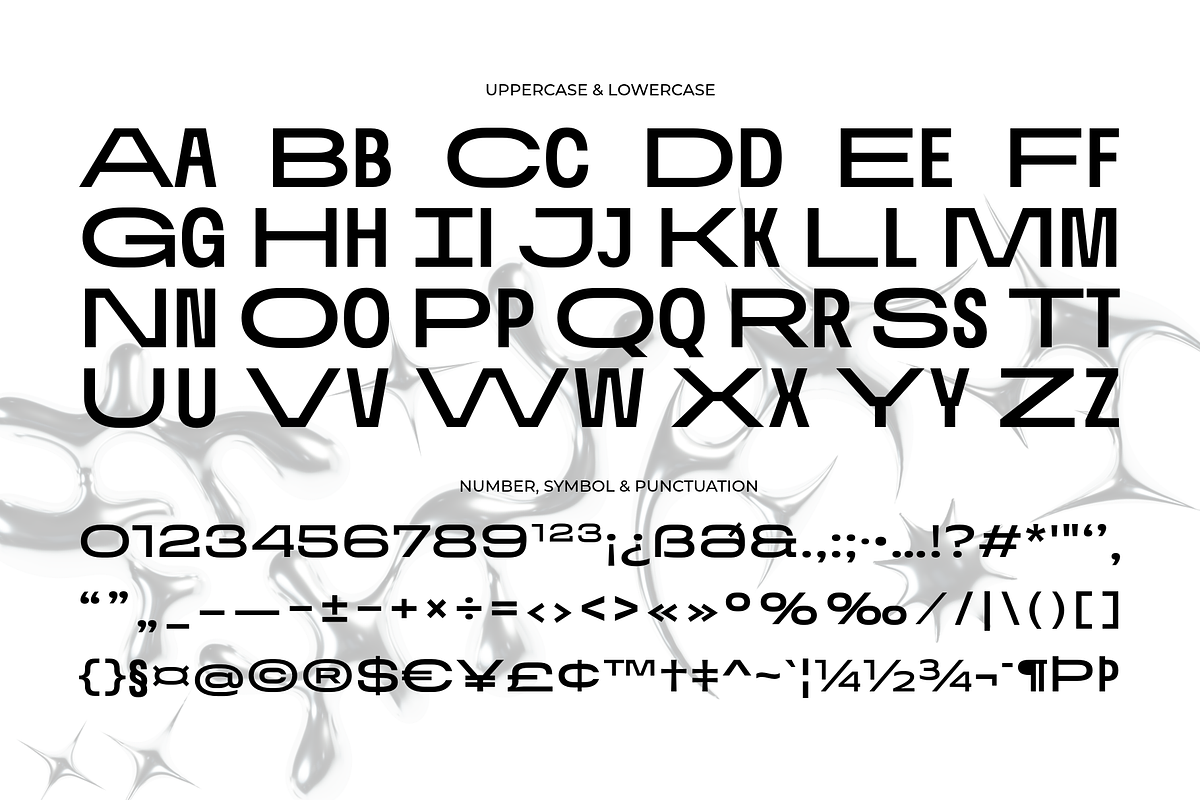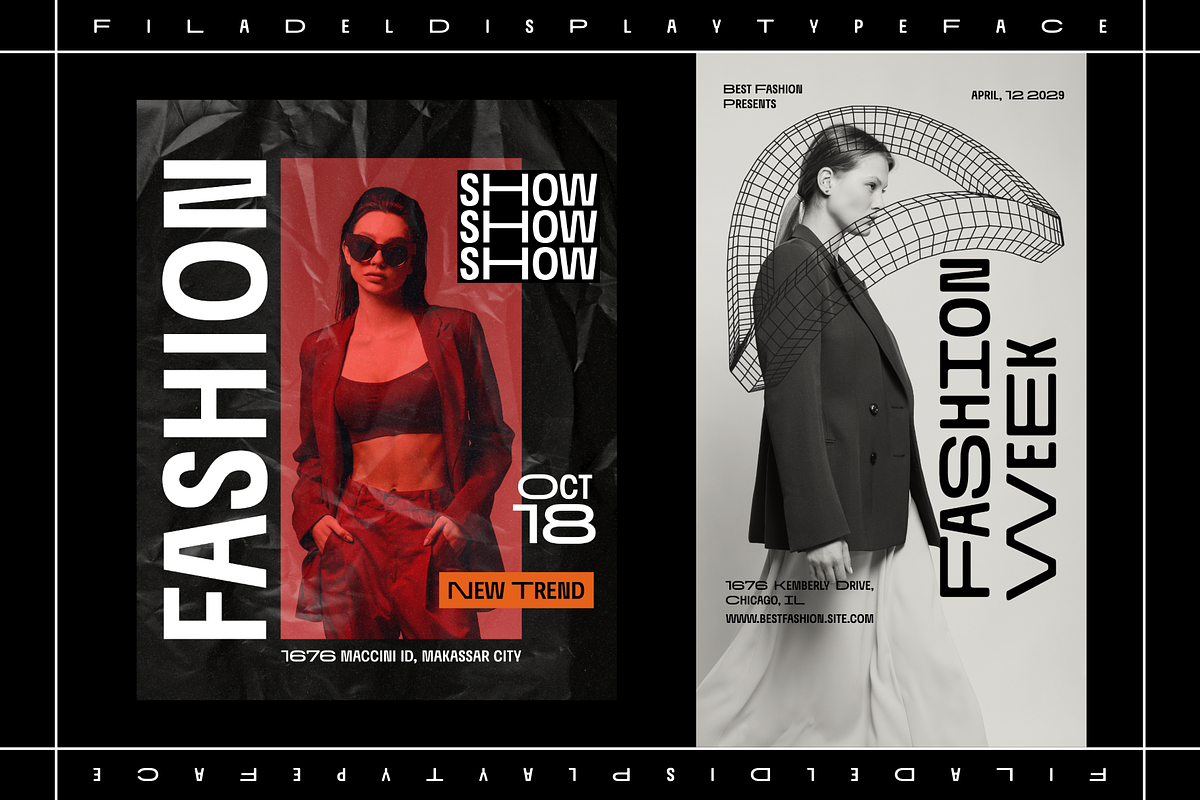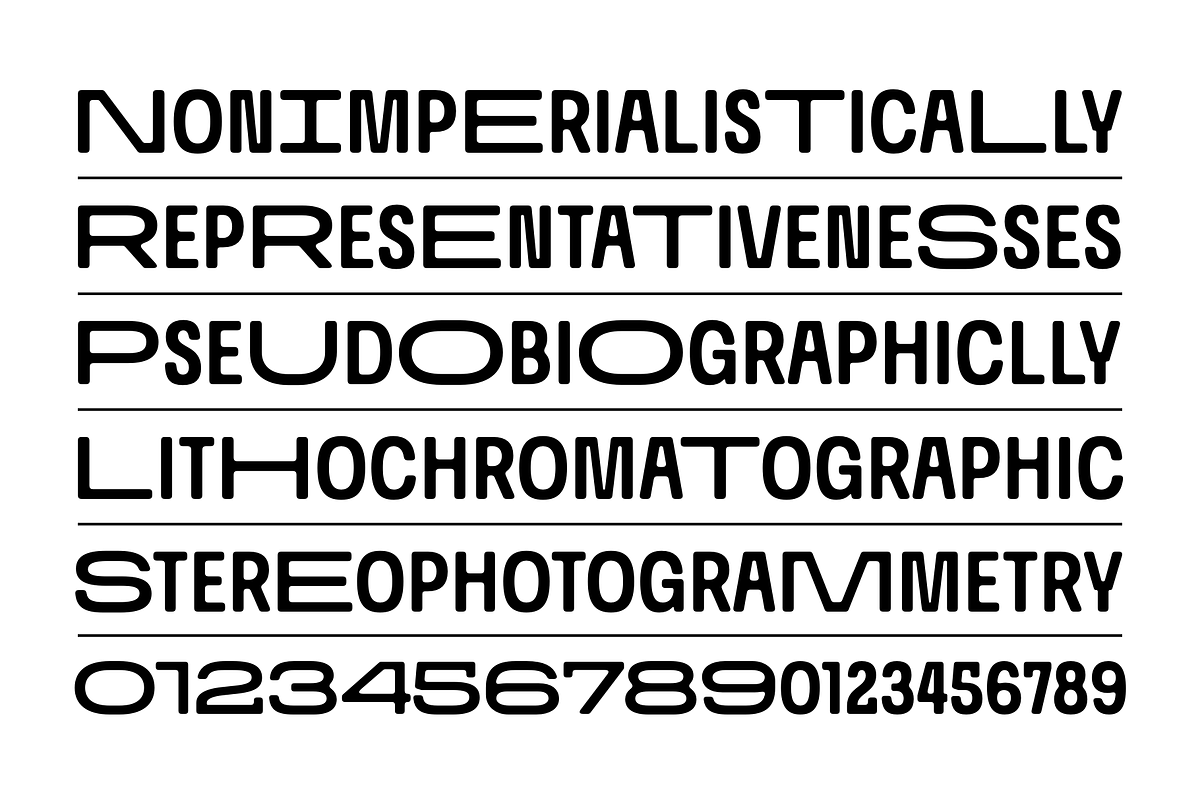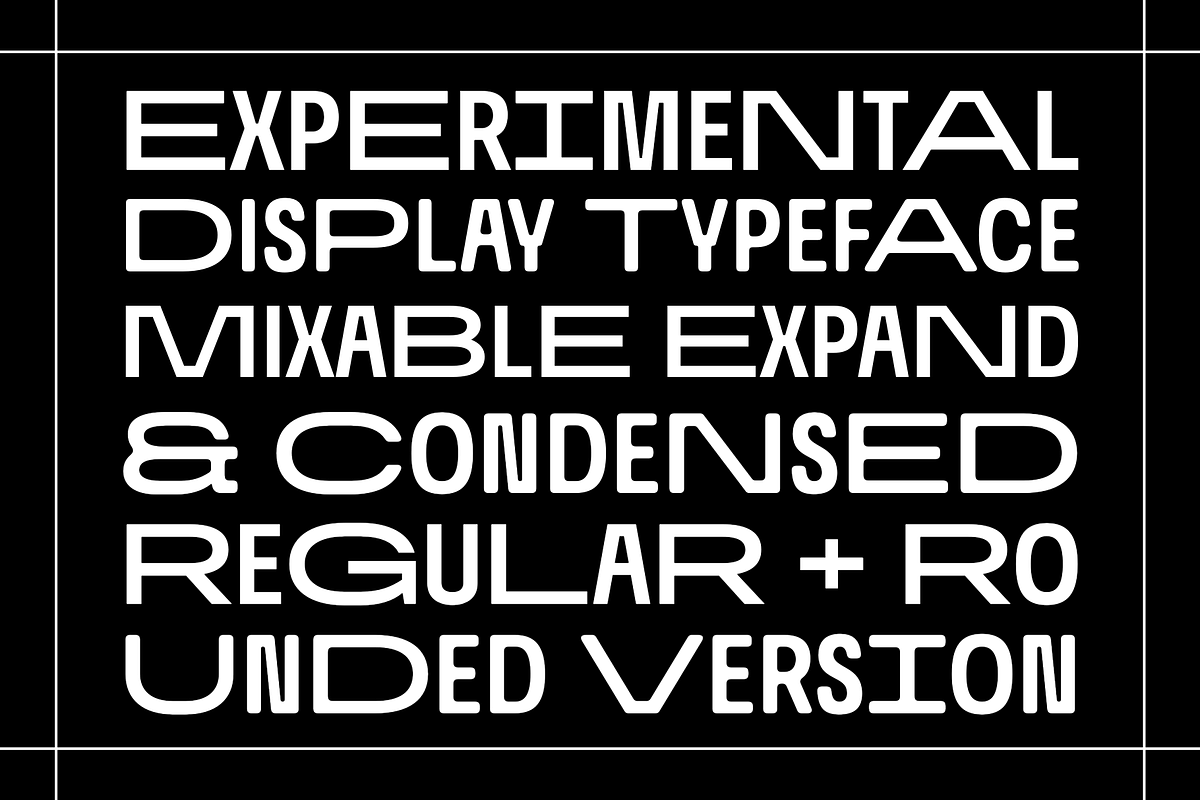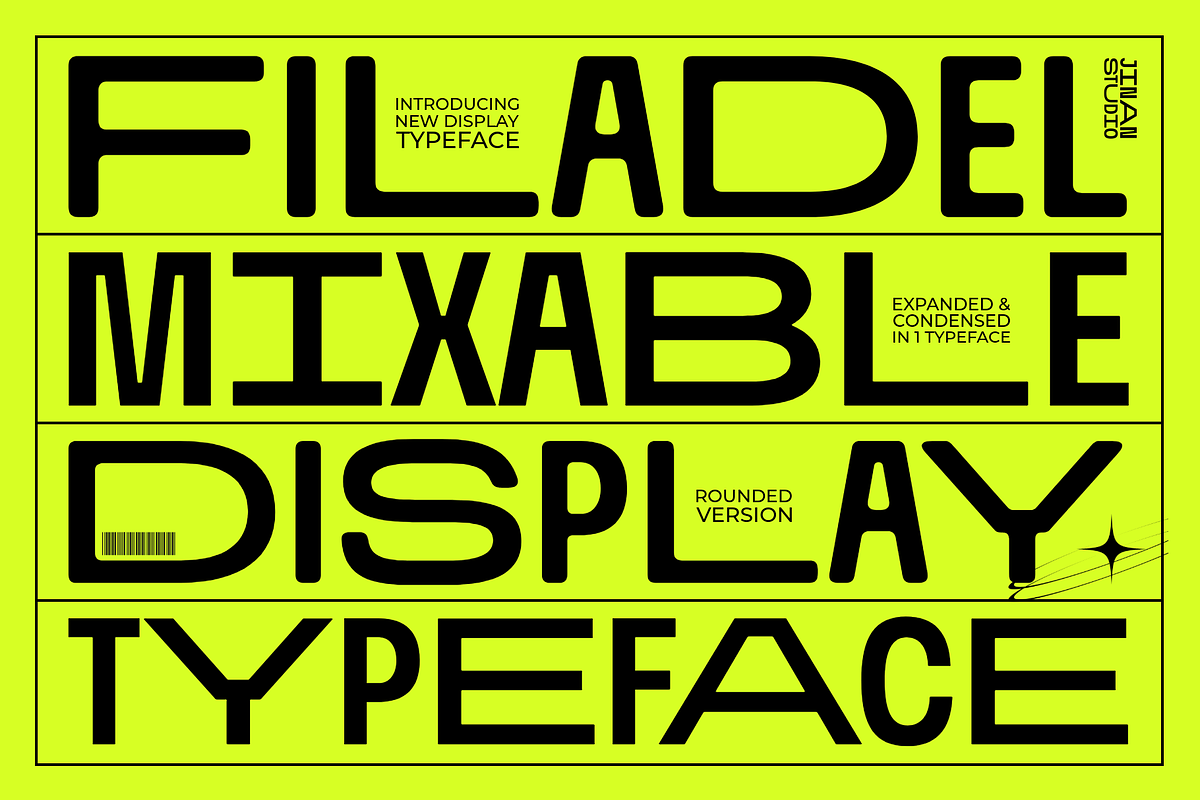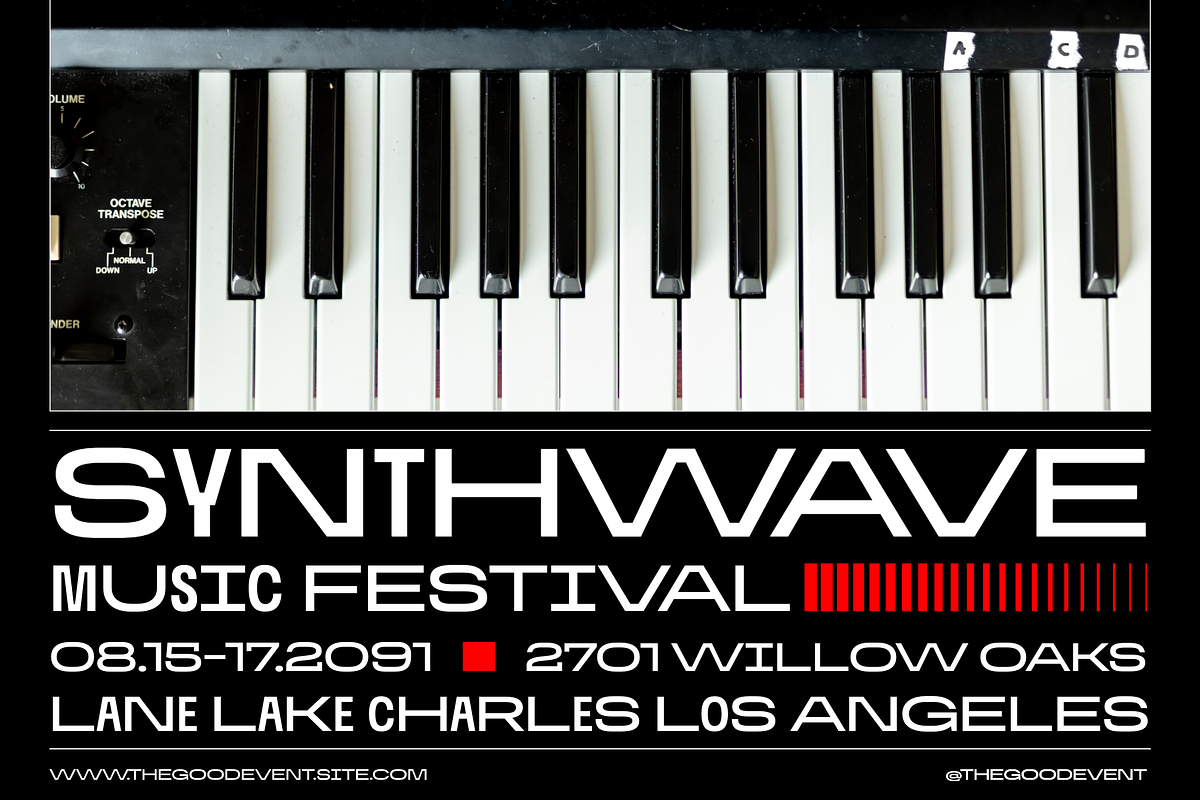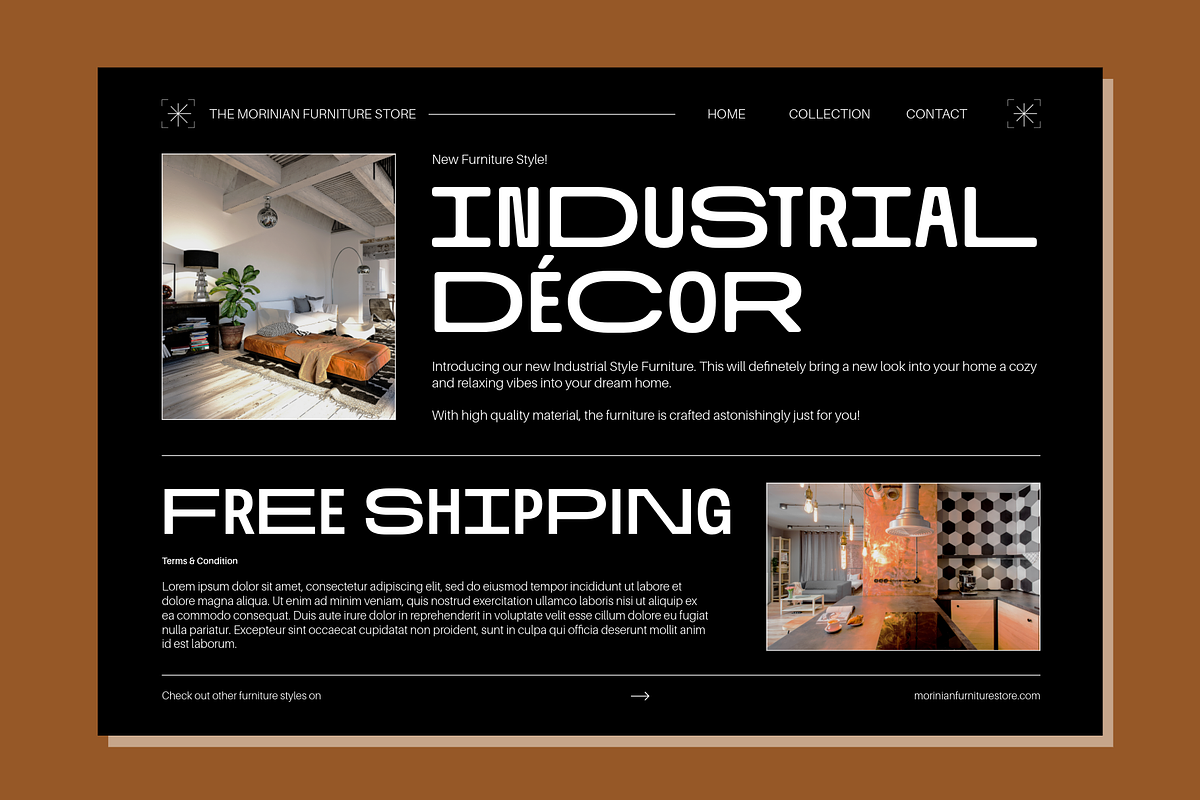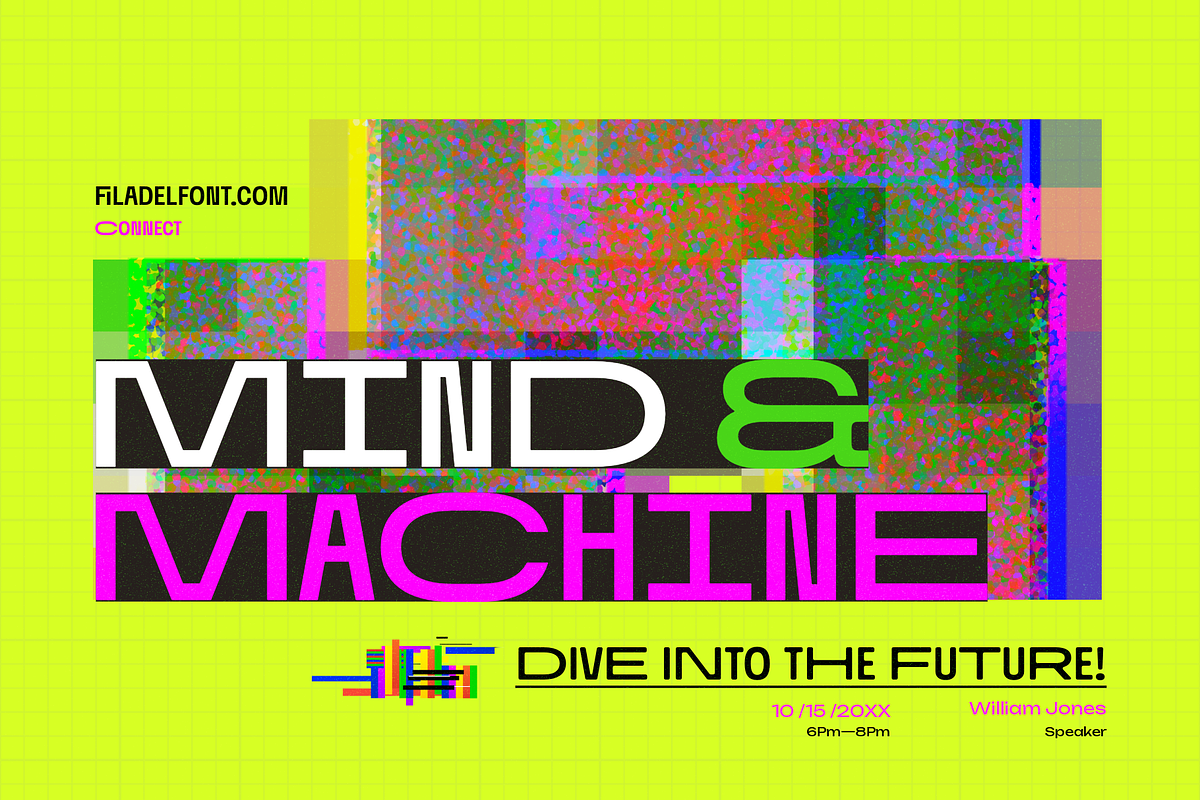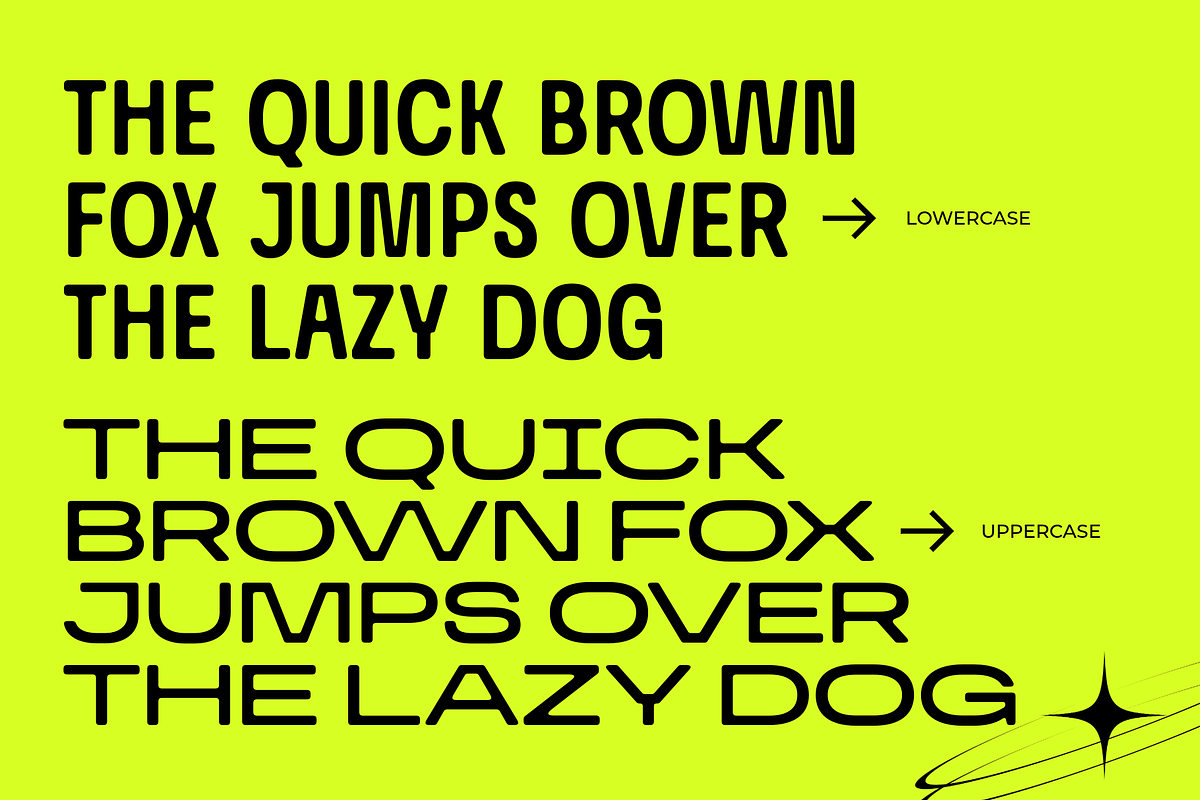
Filadel - Display Typeface
Filadel is a futuristic mix-width display typeface that combines expanded uppercase and condensed lowercase into one bold and versatile system. Designed to create strong visual contrast while maintaining balance and readability, this typeface delivers a distinctive modern rhythm that instantly stands out across creative applications.
Built with smooth rounded corners, wide proportions, and clean geometric construction, Filadel offers a contemporary tech-inspired aesthetic with a refined editorial feel. The unique combination of spacious uppercase forms and compact lowercase characters opens new possibilities for expressive typography, dynamic hierarchy, and eye-catching compositions.
Whether used at large scale or compact layouts, Filadel brings a confident personality that feels modern, experimental, and highly adaptable.
Mix Width System (Expanded + Condensed)
Rounded Display Style
Modern Futuristic Character
Strong Visual Impact